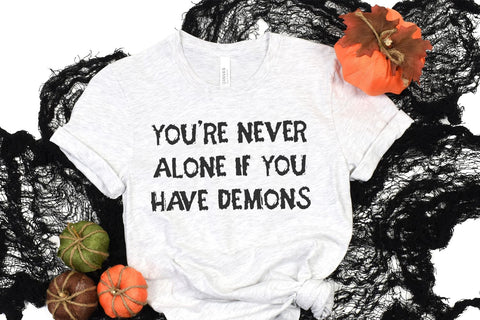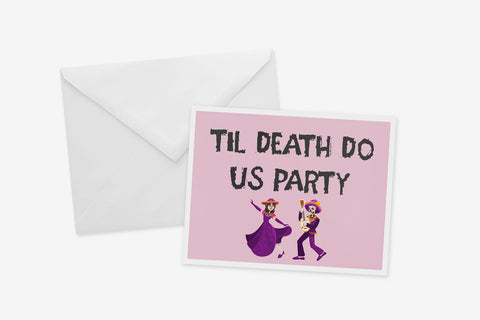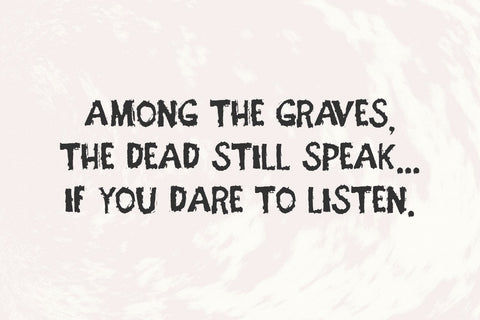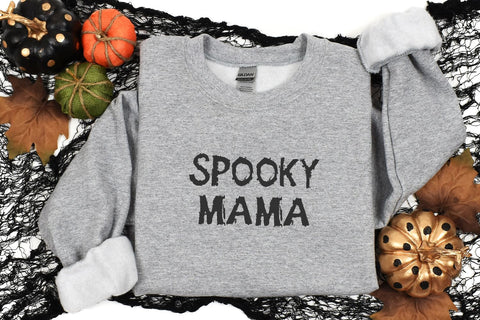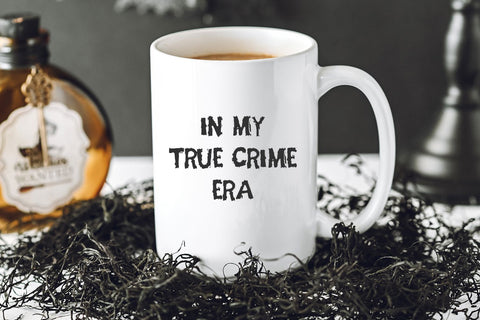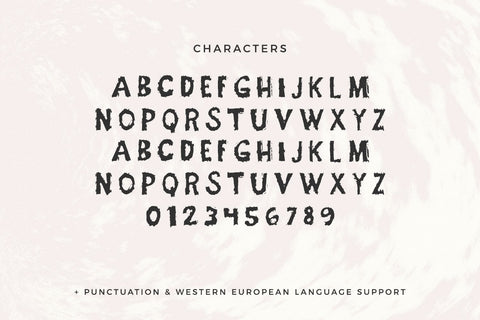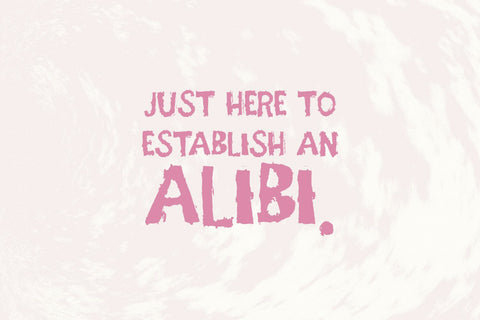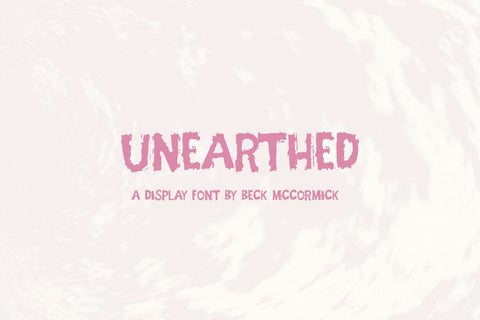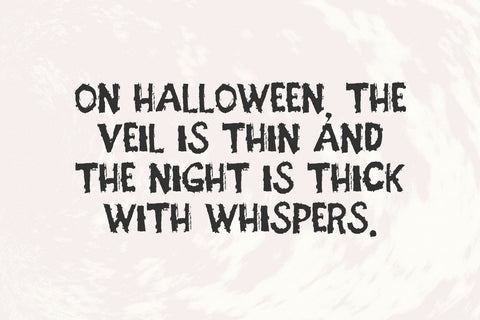
Unearthed - A Grungy Font
Introducing Unearthed, a grungy, textured font. Unearthed is a fantastic fit for your spooky graveyard designs. This font is well-suited for Halloween crafting projects, and can be used for things like shirts, signs, labels, marketing materials, social media, greeting cards & other print items, and even spooky logos & branding.
Please note that because Unearthed is so textured, it may not be the best fit for your vinyl cutting machines, but this font would work well for all print & cut applications!
- full upper + lowercase characters (Unearthed is all-caps, so uppercase characters are programmed into lowercase spots for ease of use.)